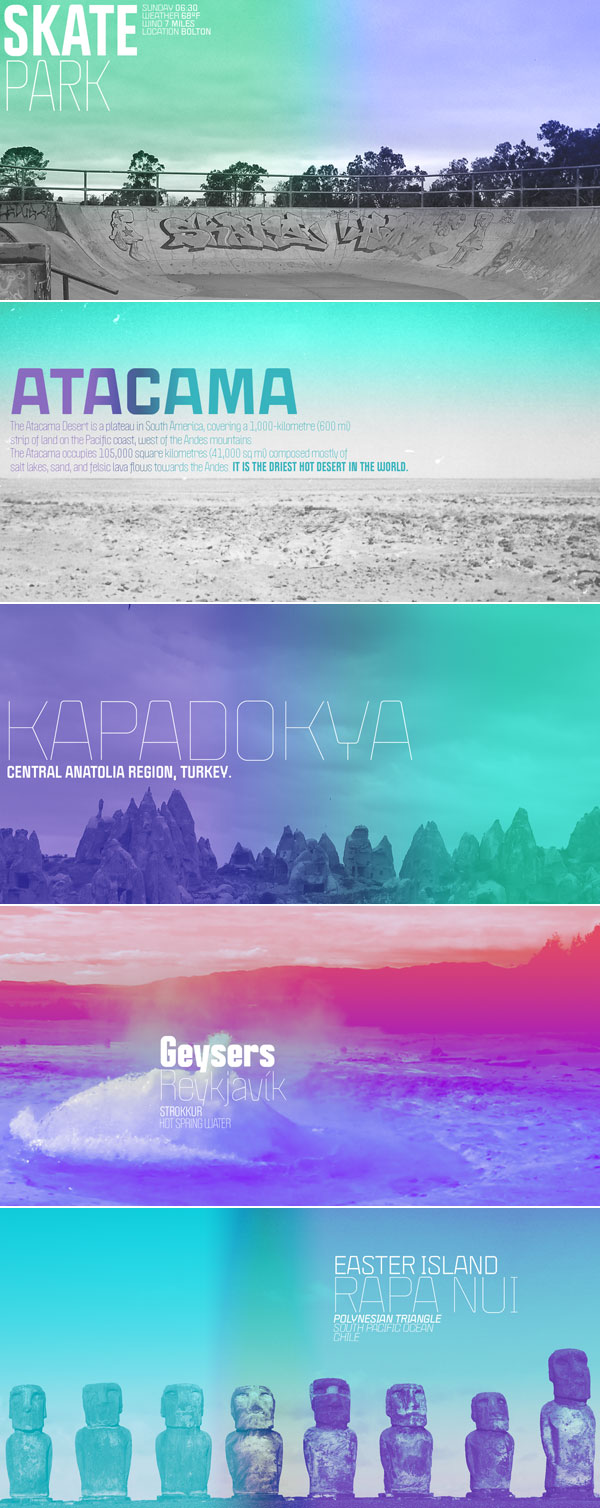
The Politica super family with numerous fonts and weights.
Politica is a super family of fonts based on opposites and diversity in our global society. Whether left or right, big or small, young or old, east or west, yes or no, the diverse Politica super family covers them all. The included fonts offer a distinctive, sturdy, modular, technical, and straight to the point look, which is suitable for a huge range of contemporary design solutions.
Argentine typeface designer Alejandro Paul of foundry Sudtipos has created this versatile super family with numerous weights, styles, and italics. The font family also comes with several OpenType features, alternates, and an extended set of characters to support multiple languages such as Cyrillic, Greek, Baltic, Turkish as well as Eastern, Central, and Western European languages.
Its sturdy and modern style will give your design a unique appearance. You can use it for striking titling, headlines and short texts.